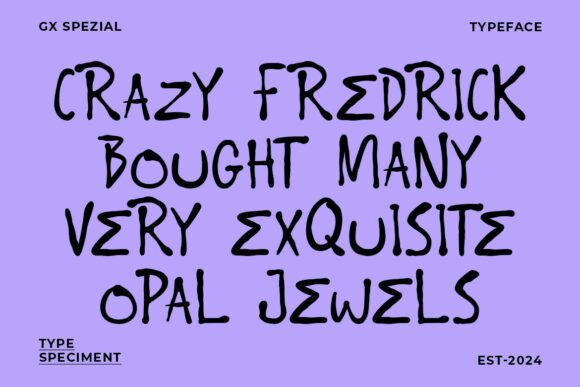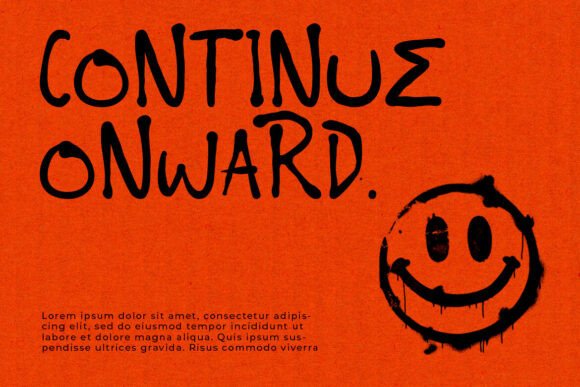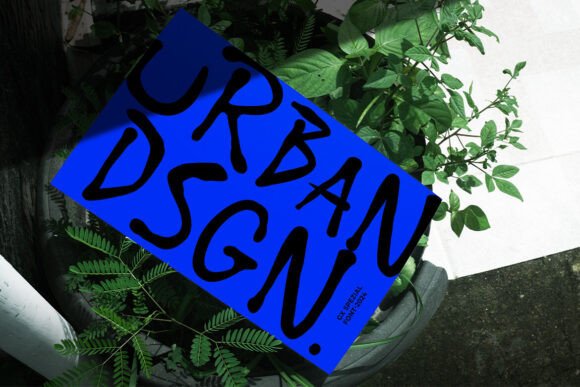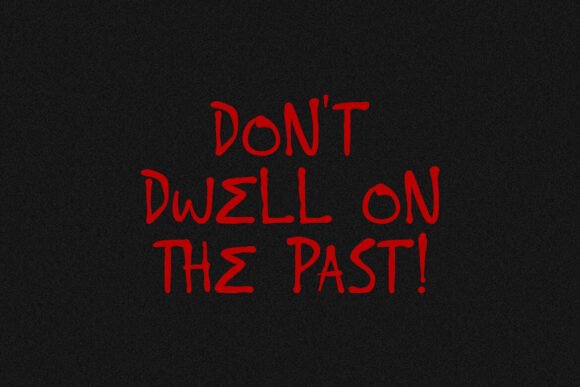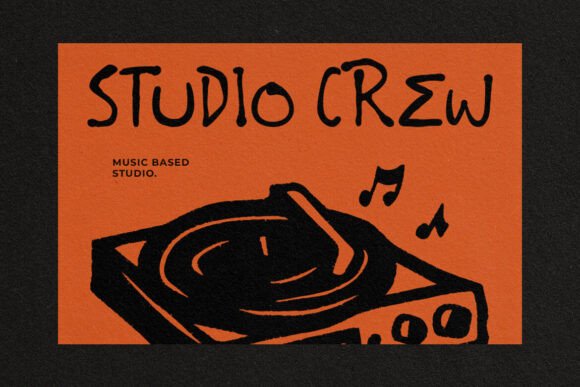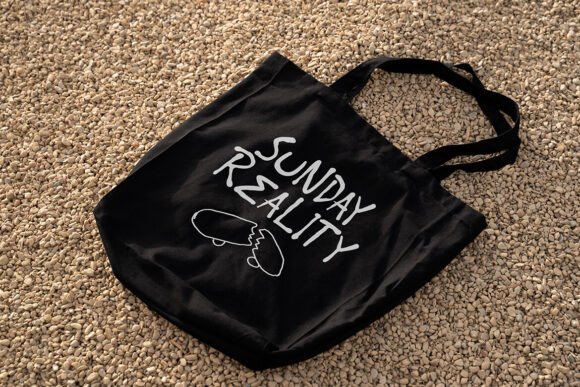
Introduction to Groovy Spezial Font
Groovy Spezial font is a handwritten font designed in a spooky style, making it an ideal choice for Halloween-themed projects.
This font captures a haunting and eerie vibe, perfect for adding a touch of mystery and intrigue to your designs The handwritten elements give Groovy Spezial a personal and unique feel, enhancing the overall thematic effect.
Key Features of Groovy Spezial Font
Why Choose Groovy Spezial Font?